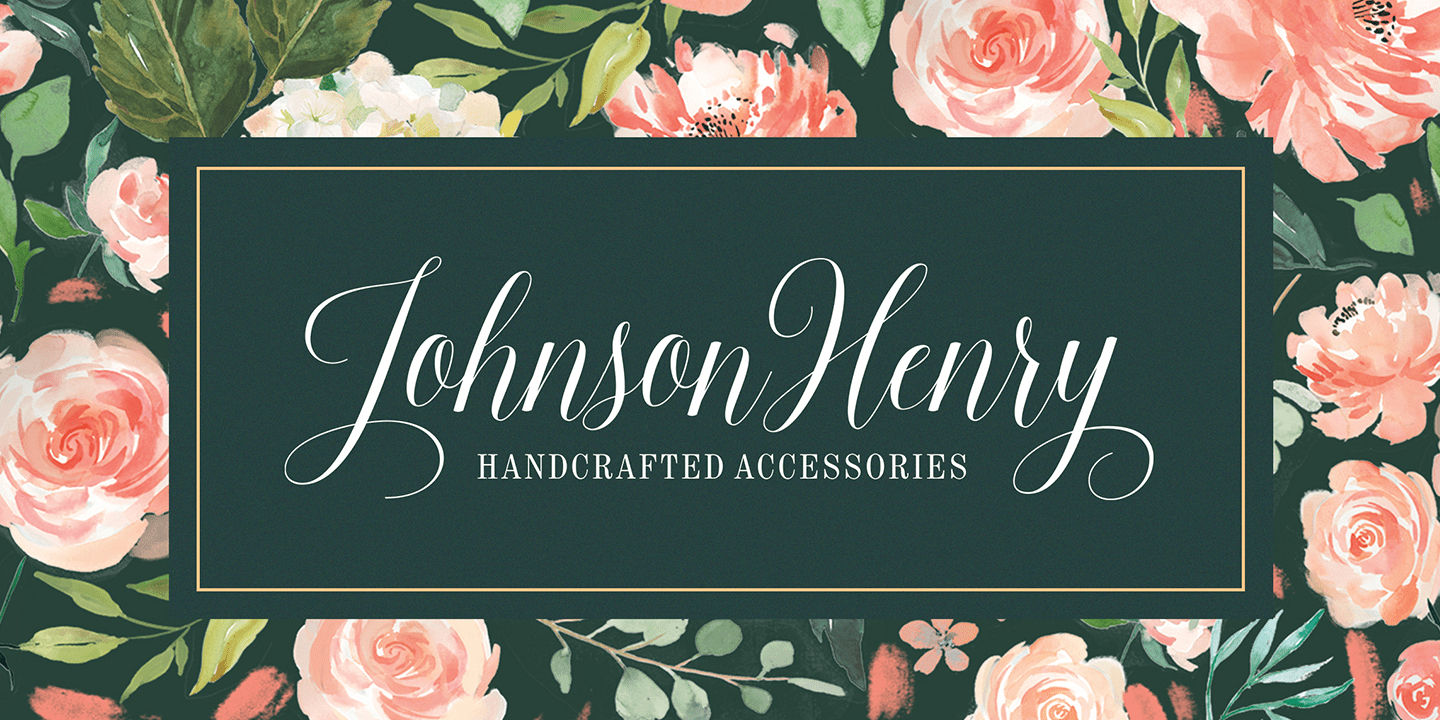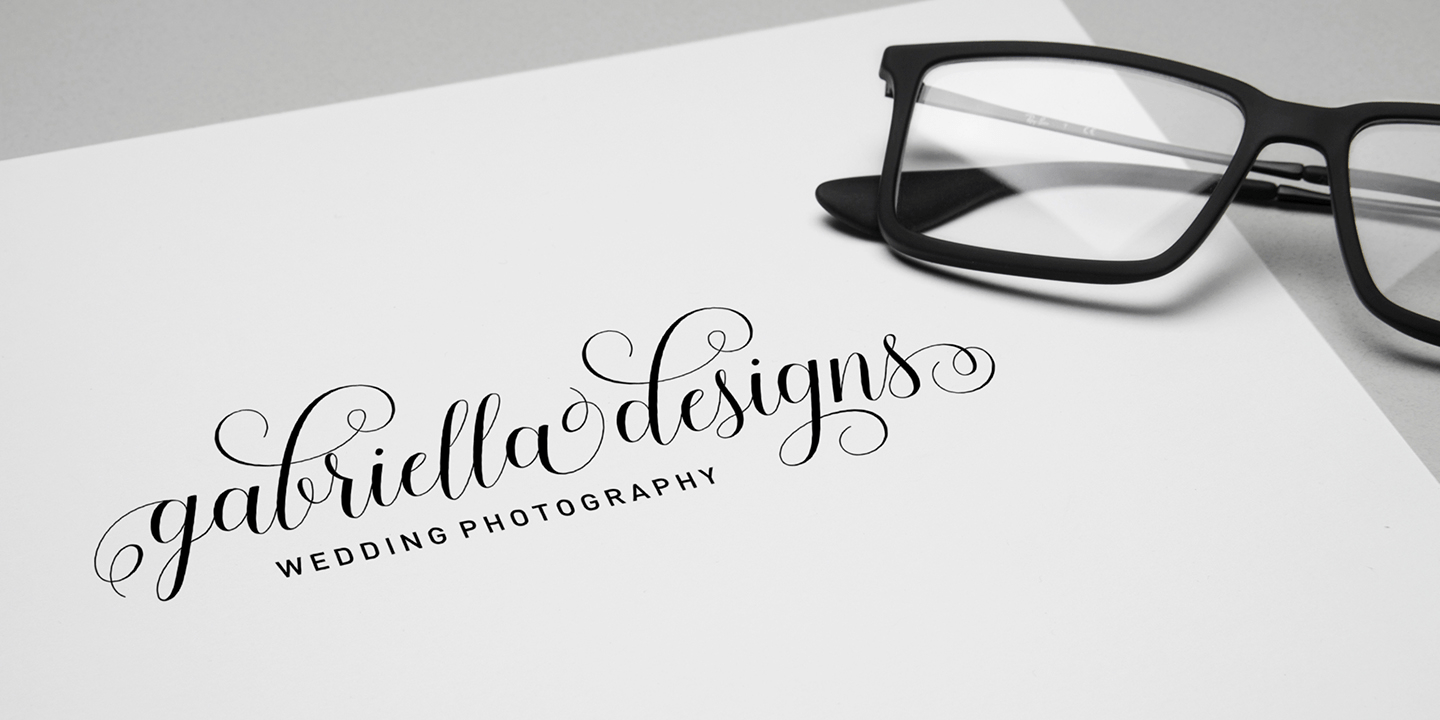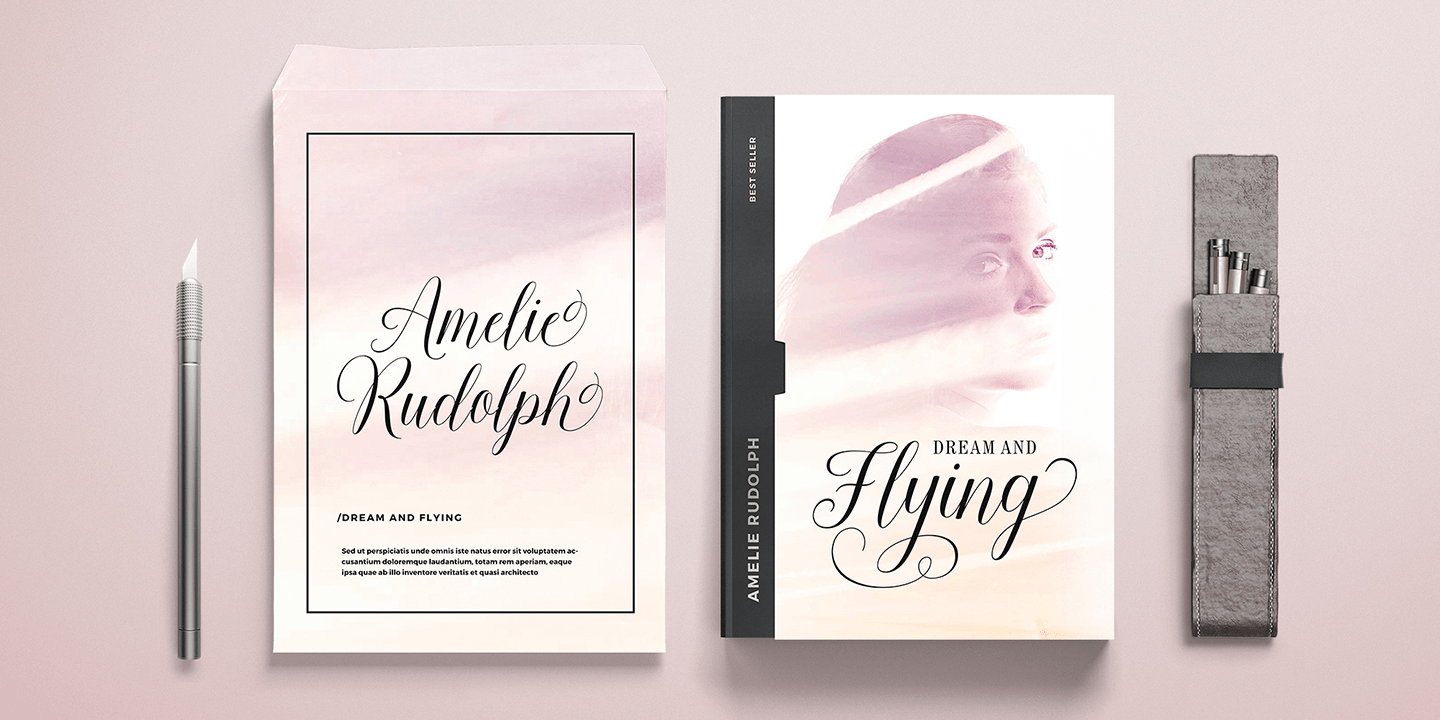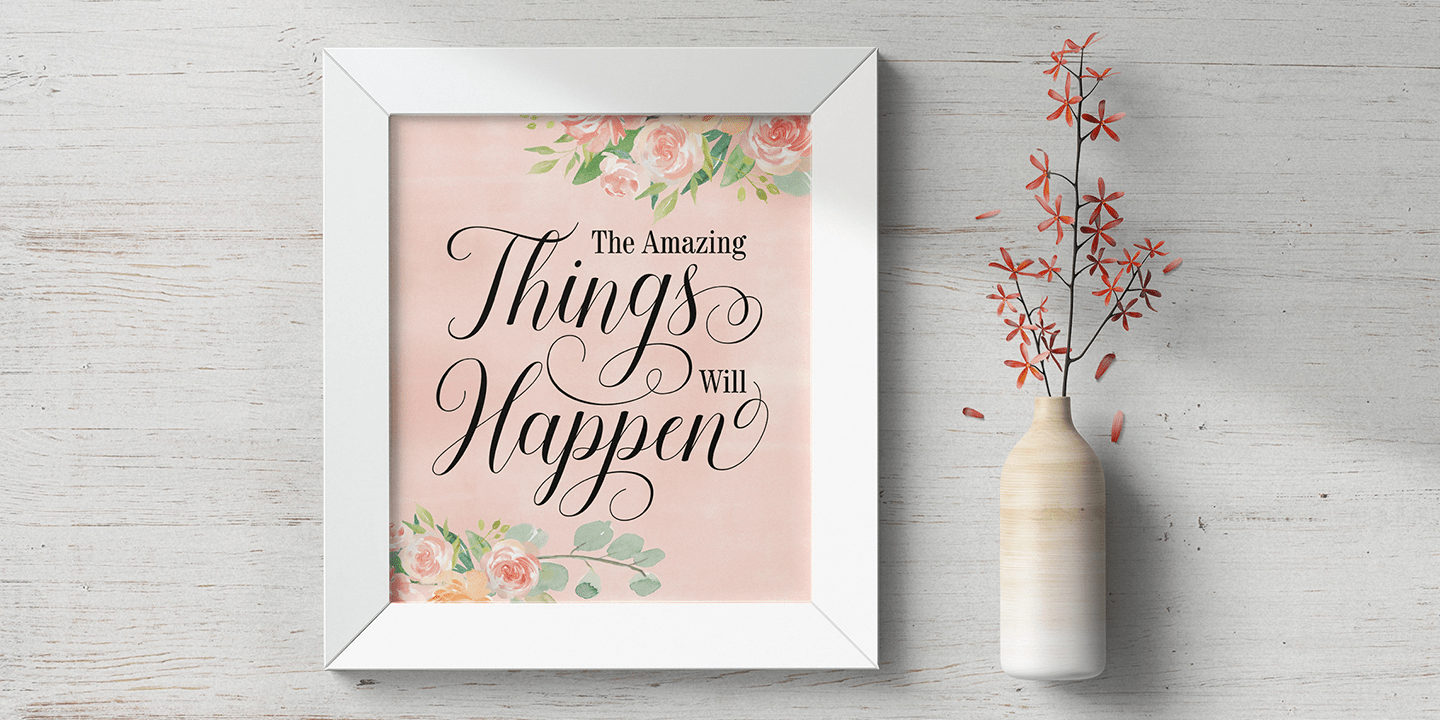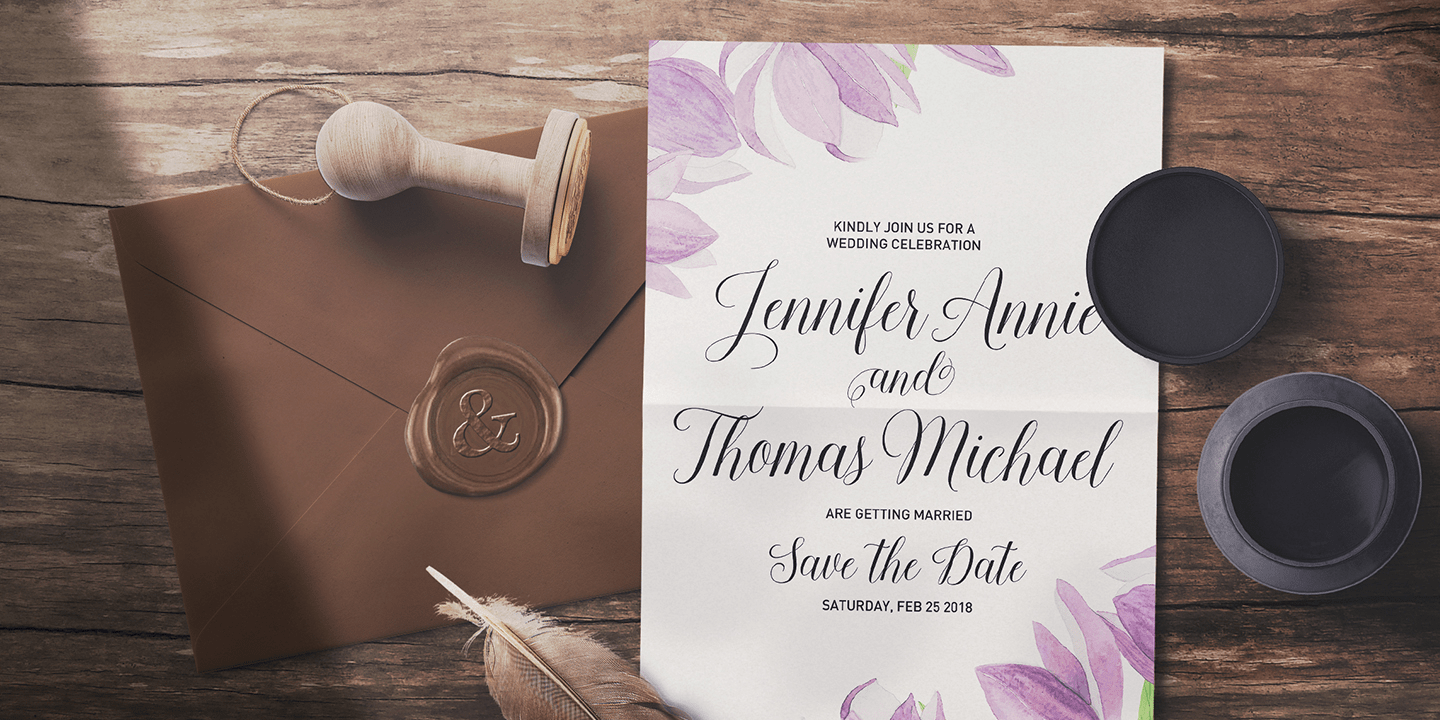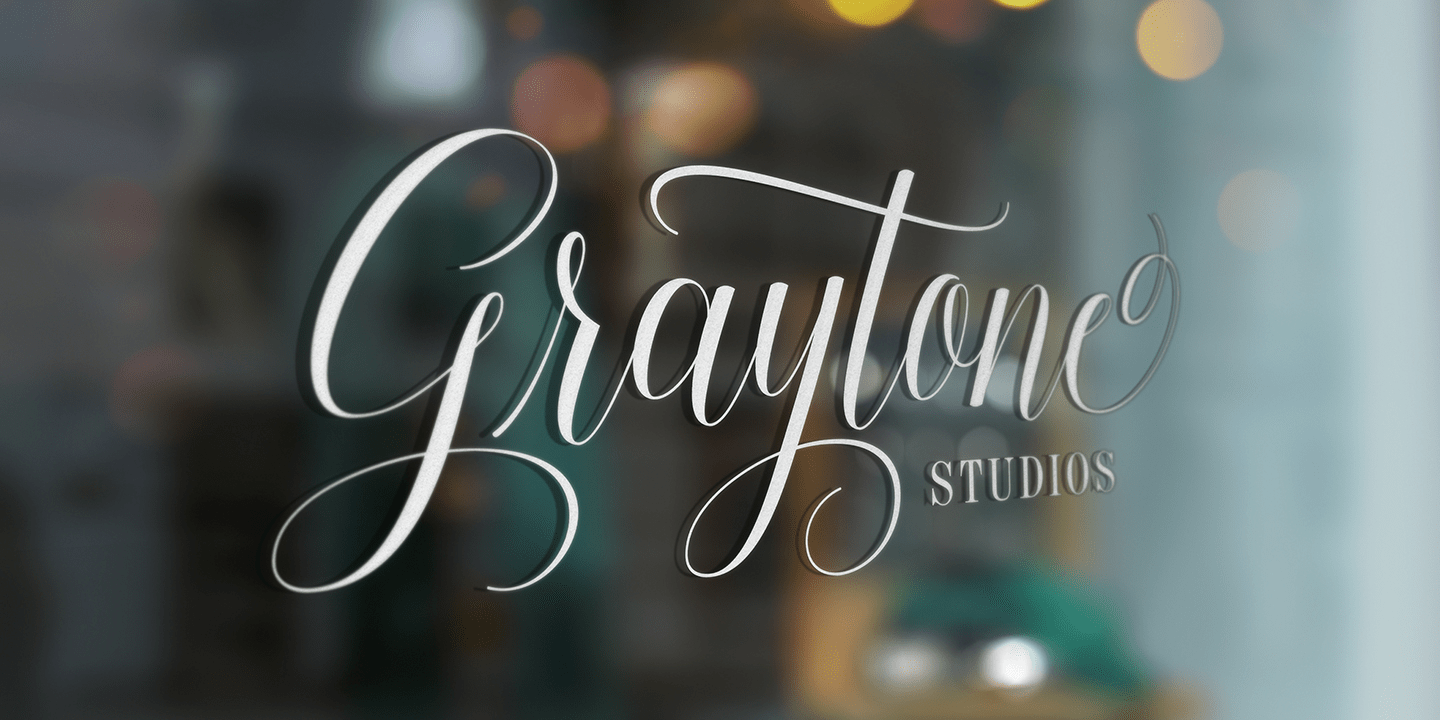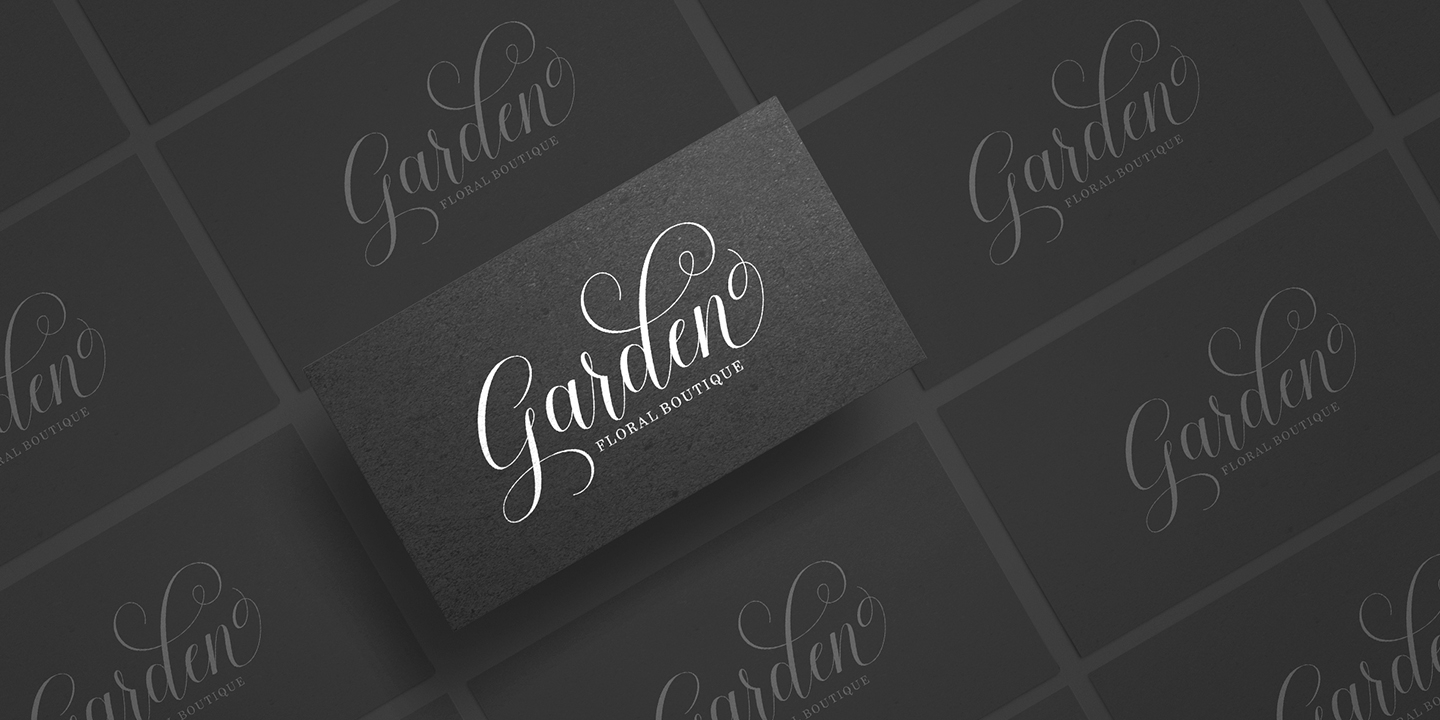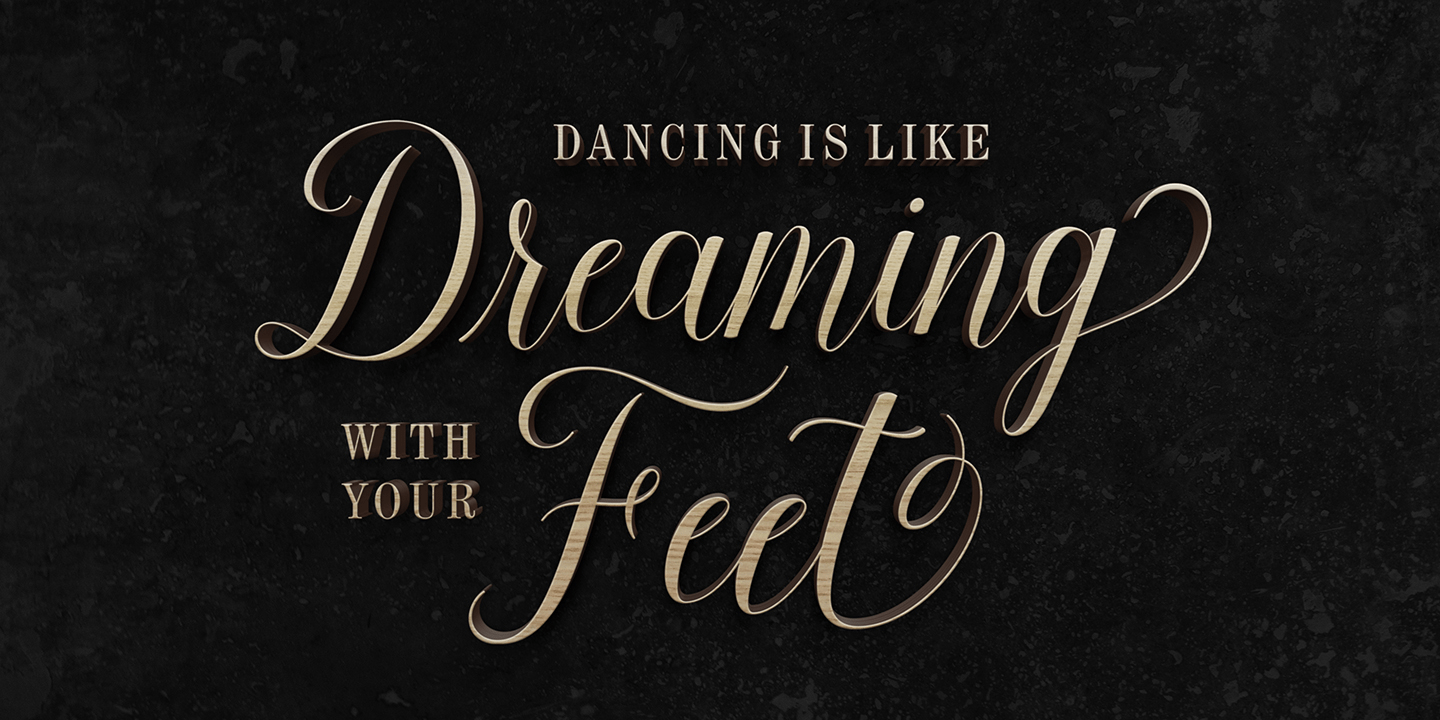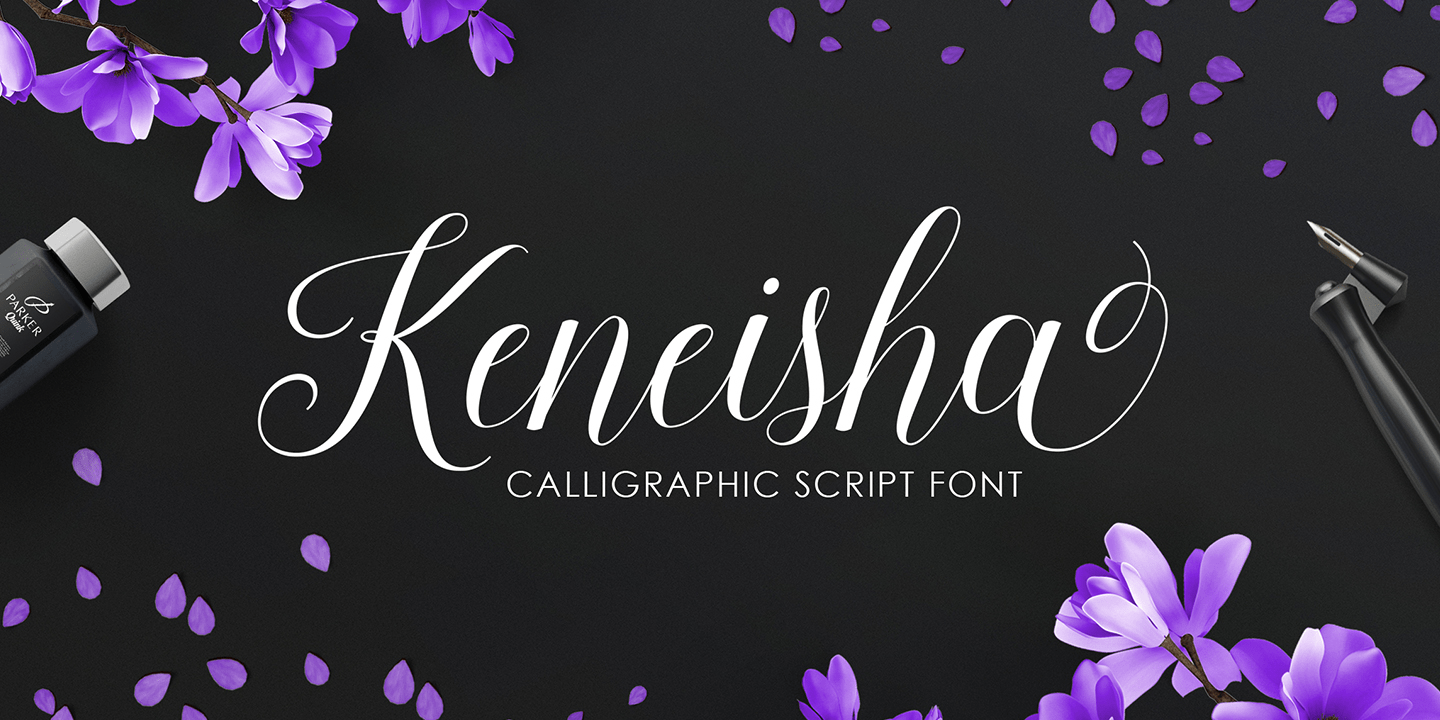
Keneisha
Keneisha is a calligraphic script font with varying baseline, which is designed to convey elegance and style. It is smoothline, clean and feminine. Works perfectly for logos, magazines, menus, books, invitations, wedding / greeting cards, packaging, labels,…